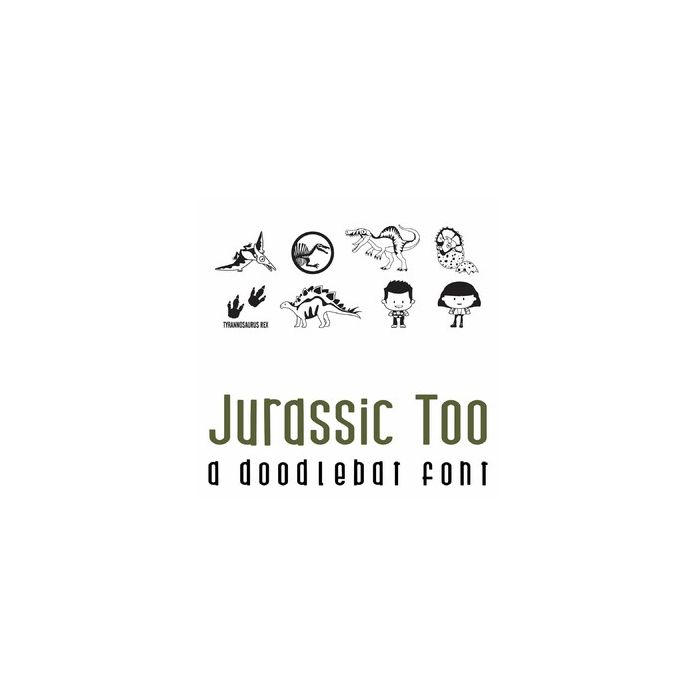
Jurassic Too Doodlebat Font
This fun doodlebat font features 26 images from your favorite dinosaur movie. Perfect for parties, crafts, games, decor, gifts, cards, planner stickers, scrap book pages and more!